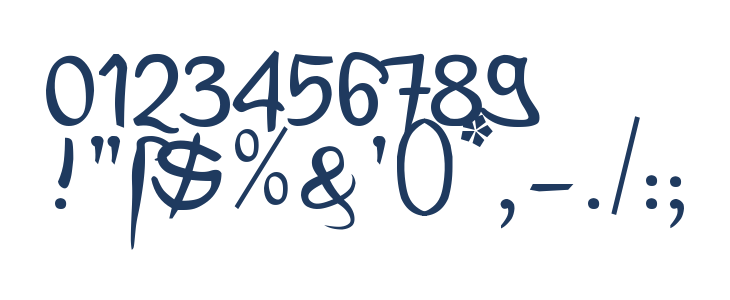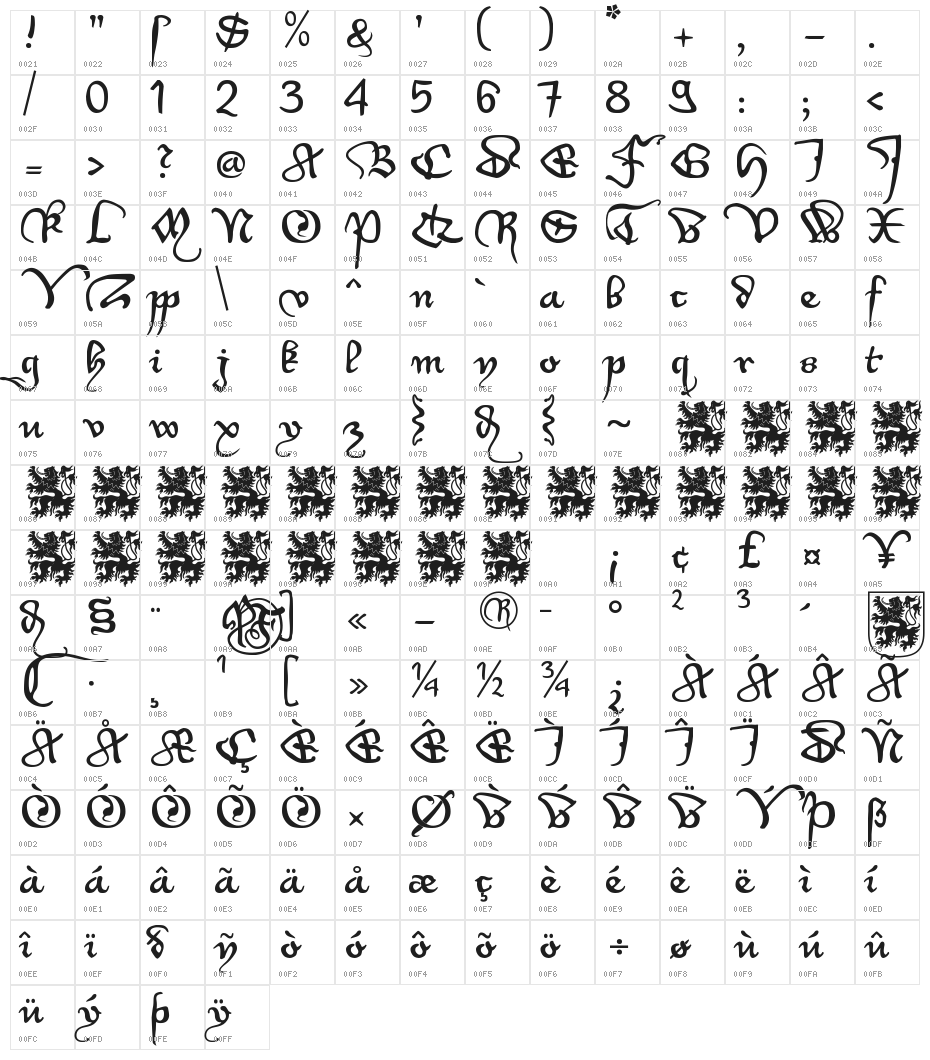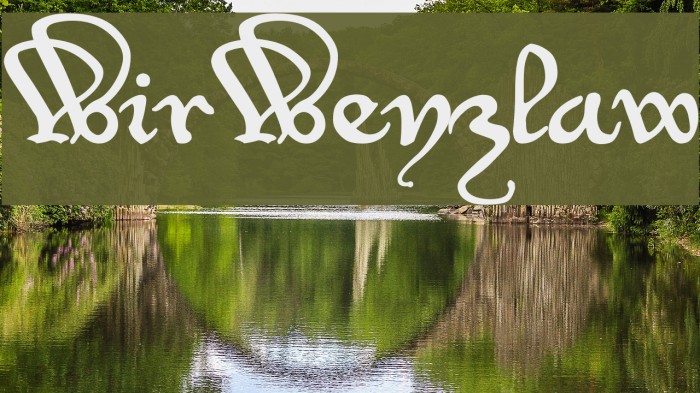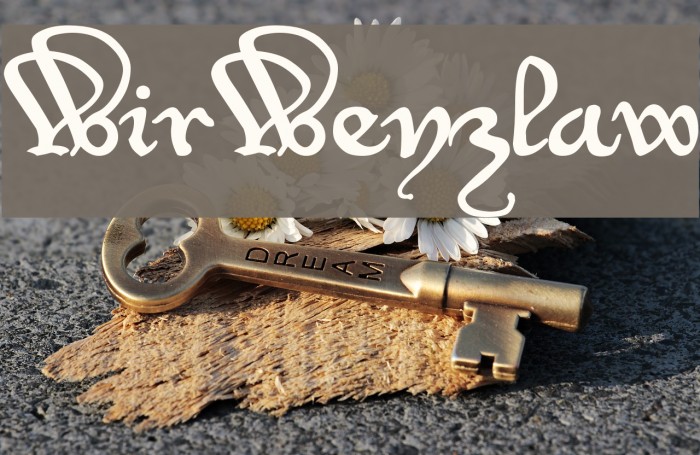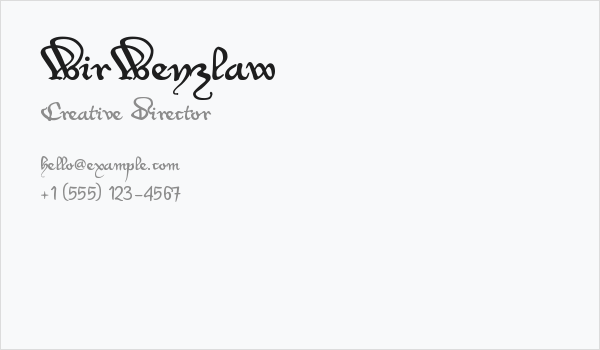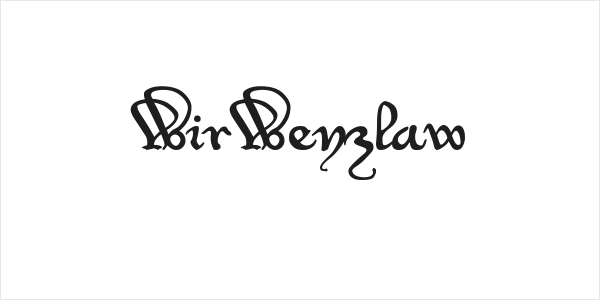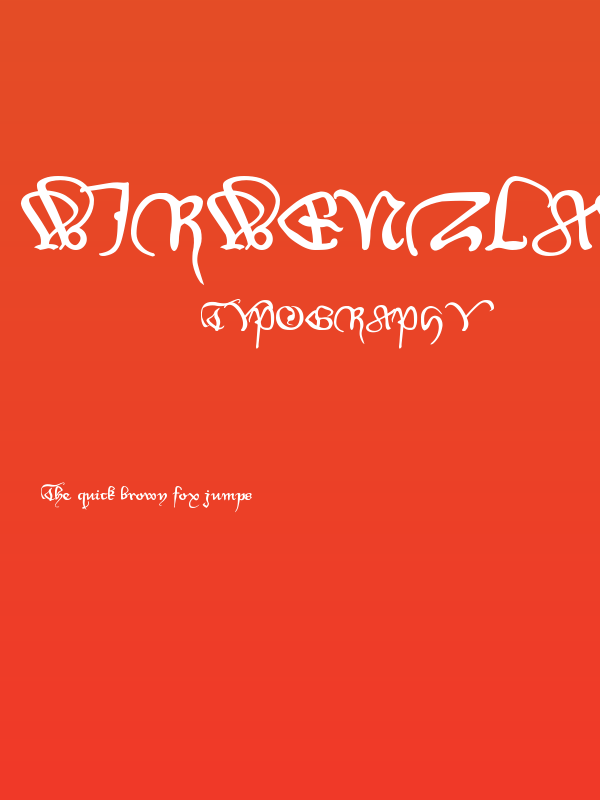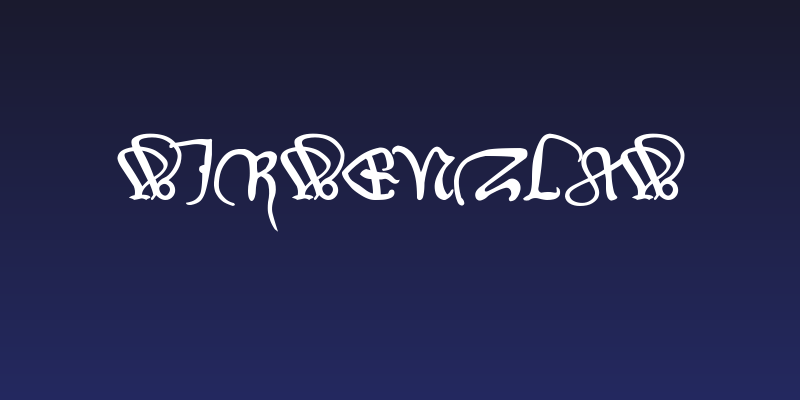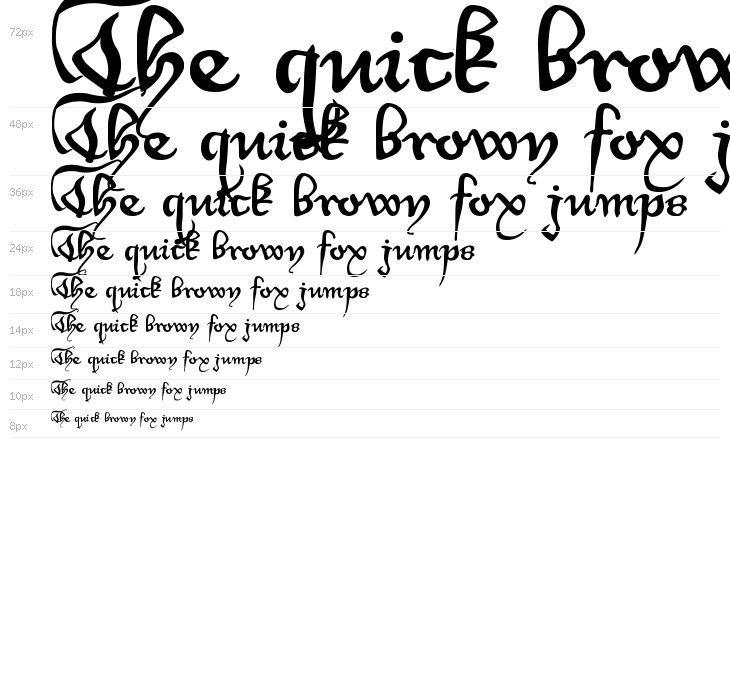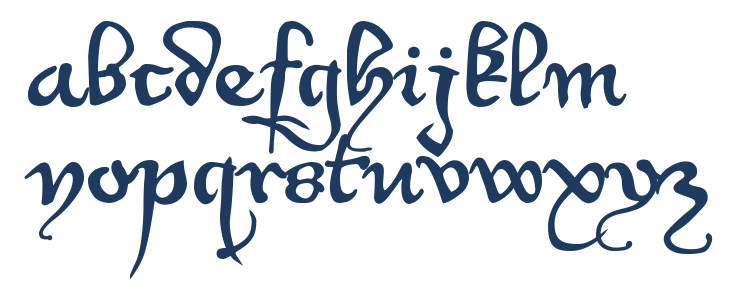
WirWenzlaw Font
WirWenzlaw Description
This font features an intricate and artistic design, reminiscent of medieval calligraphy. The uppercase letters are highly stylized with elaborate curves and flourishes, creating a sense of elegance and historical charm. The lowercase letters maintain a similar style, with flowing lines and unique character shapes that add to the font's decorative appeal. The numerals are bold and distinct, matching the overall ornate theme. Special characters are creatively integrated, enhancing the font's versatility for various design applications.
| Proposed Projects | Ideal for historical-themed projects, invitations, certificates, and decorative headings. |